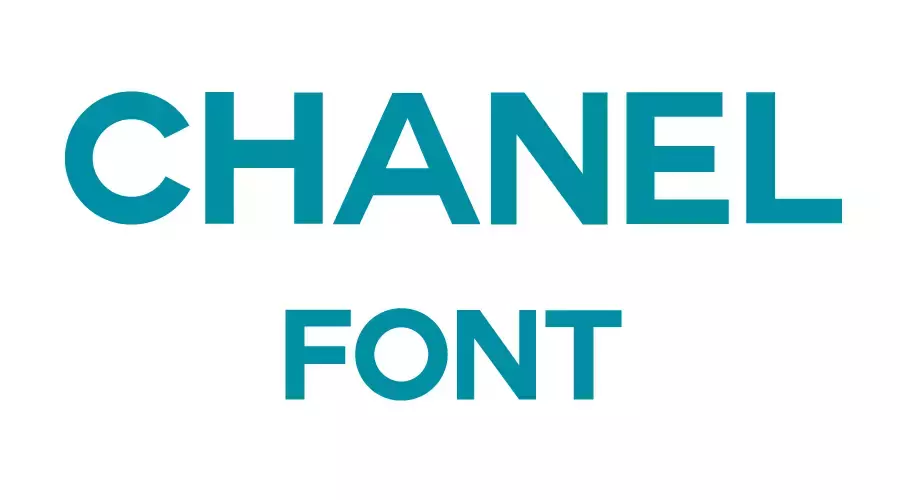
The Chanel Font is The same-named brand’s logo. Chanel is a well-known name in high-end fashion and cosmetics, offering luxurious items only for the young and fashionable. The headquarters of Chanel is located in France and date back to 1909.
Its main offerings include clothing, accessories, and fragrances. Couture font, created by Chase Babb in 2012, is another name for the Chanel typeface. It is a Sans Serif font with two distinctive styles: Bold Italic and Bold.
What font is used in the Chanel logo?
The logo is made up of the initials of the company’s founder, Coco Chanel, which are two interlocking Cs that face each other. The brand lettering word “CHANEL” is located underneath.
The “Couture Bold” font was used to create the Chanel logo lettering, which was designed by Chase Babb in 2012.
It is a sans-serif font with a geometric design and two styles: bold and bold italic. This typeface is both appealing and functional for a variety of uses. In France, a lot of upscale hotels and businesses also use it.
Some Common Uses
The typeface Chanel is intended for usage in headline and display settings. It is a geometric sans-serif font that works well in contexts that emphasize modern and minimal design.
This versatile font is ideal for sophisticated designs like official business cards, wedding cards, invitation cards, regular book covers, designing a logo, birthday cards, creating a comic, and developing games.
Additionally, you can use it for designing posters and flyers, branding and identity materials, packaging design, advertising and marketing materials, and more. Due to its innovative and elegant design, it has a great deal of appeal.
Close Fonts to Chanel
To Conclude